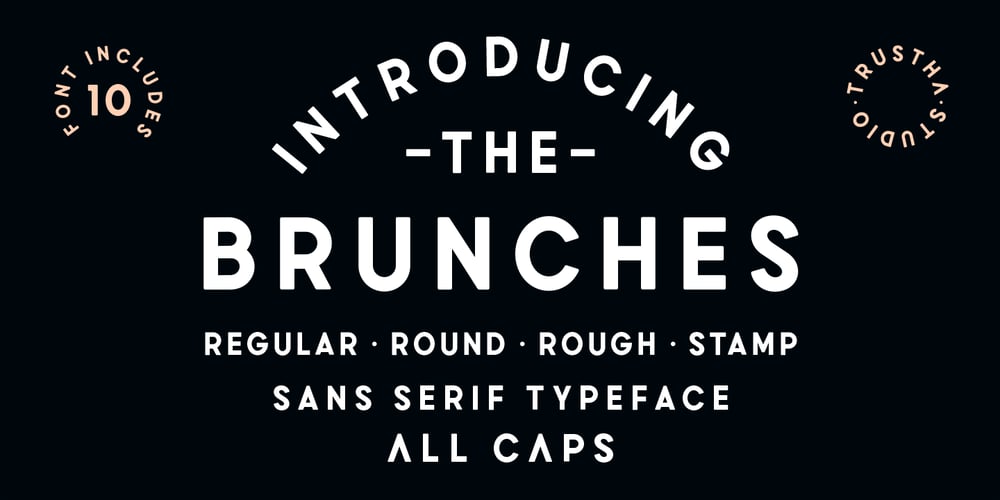
Brunches Font Family was designed by Bagas Ardiatma and published by Trustha. Brunches contains 10 styles and family package options. Brunches is a sans serif font family with five different styles. Basically this font is designed with geometric principles. There are several possibilities of styles to choose from as needed. Suitable for all creative project. Brunches will make each project easier and more colorful because it has several different styles.